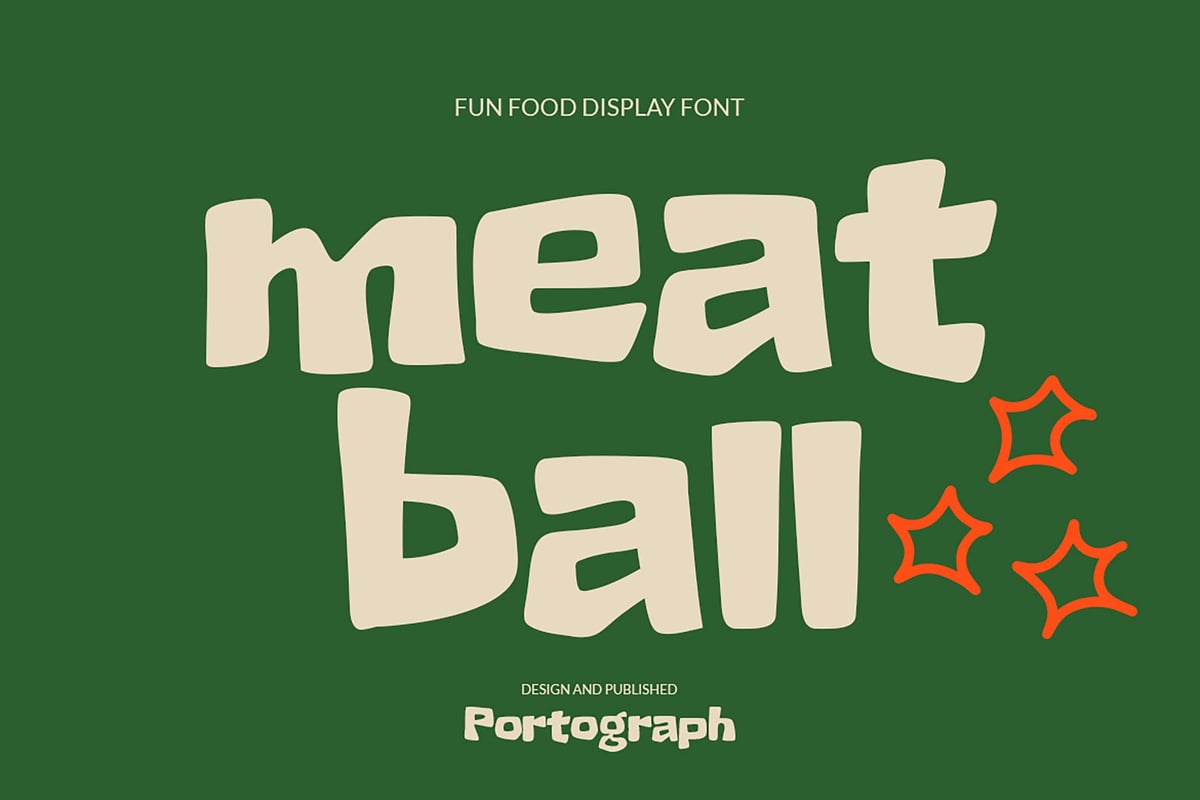
Meat Ball – Food Font
Transform your food branding with Meatball – the chunky, friendly display font that instantly creates warmth and appetite appeal. This bold typeface features soft curves and chunky letterforms designed specifically to energize food branding and promotional designs. Its inviting visual impact makes it perfect for creating memorable restaurant identities and mouth-watering marketing materials. Package includes: OTF format TTF format WOFF2 format Font features: Uppercase characters Lowe...